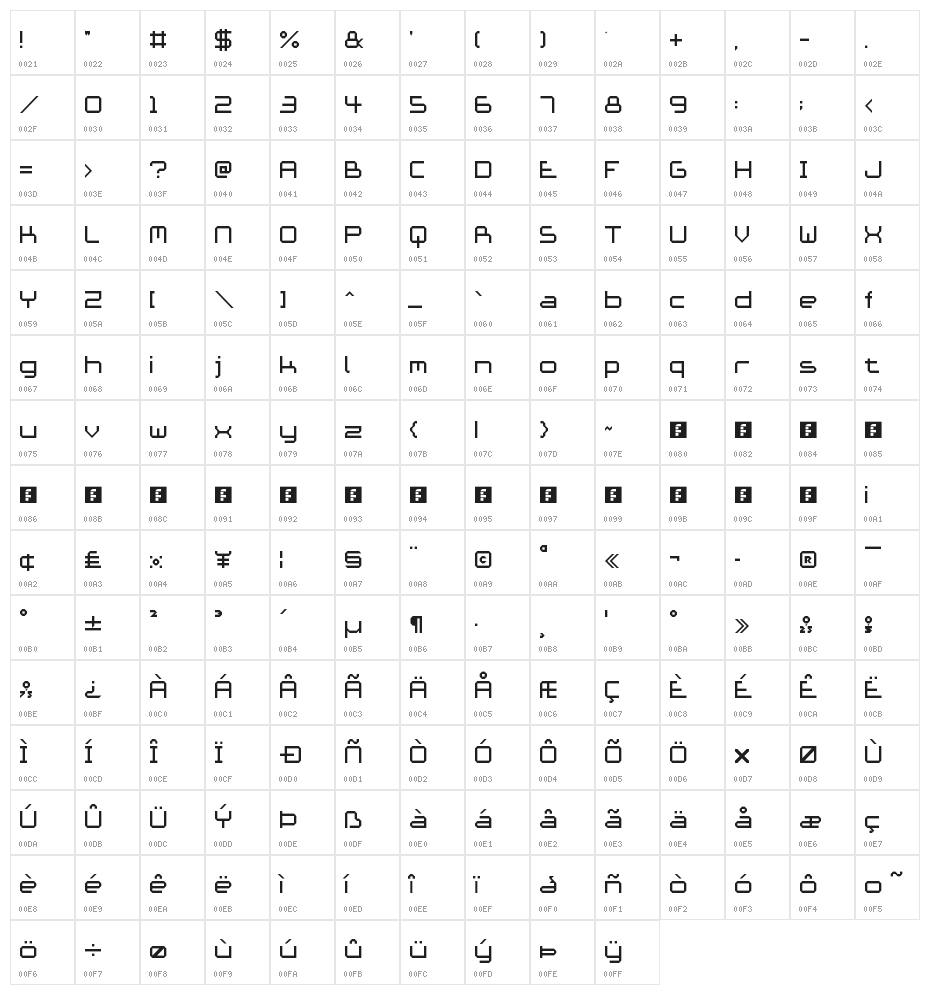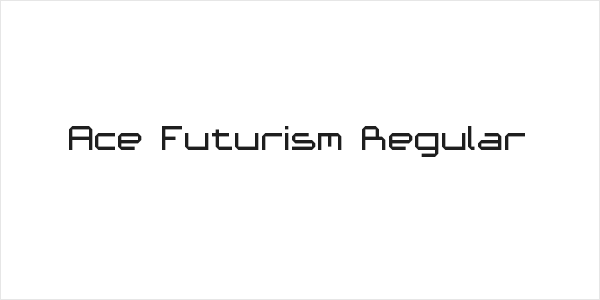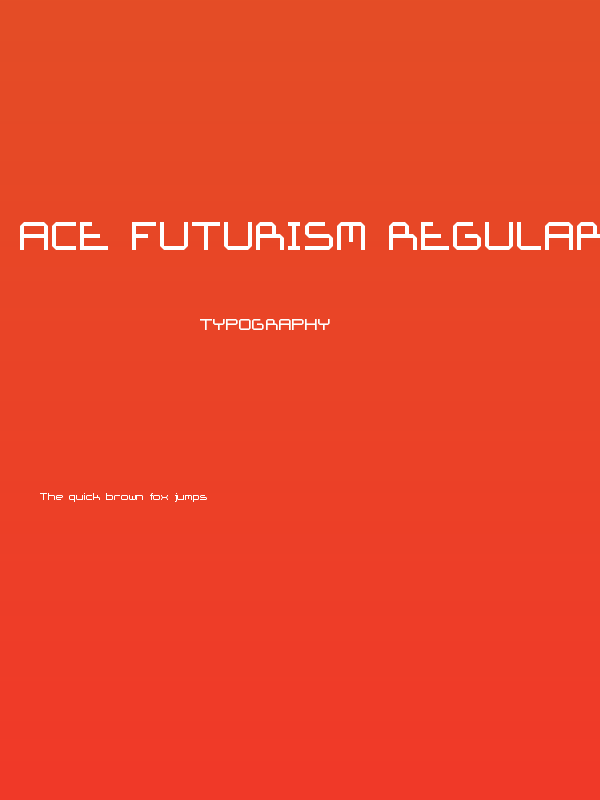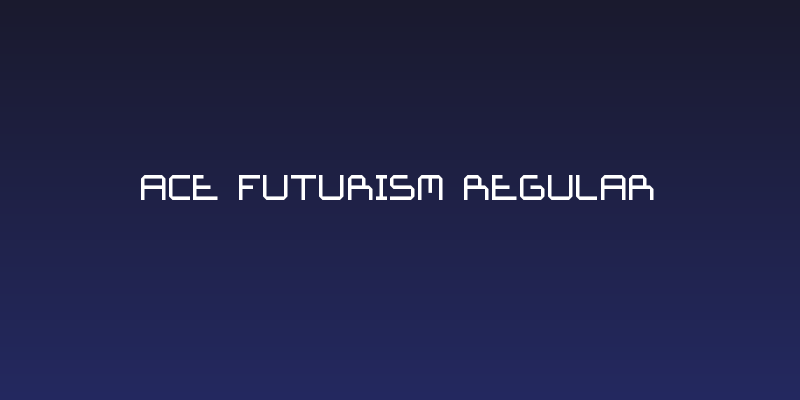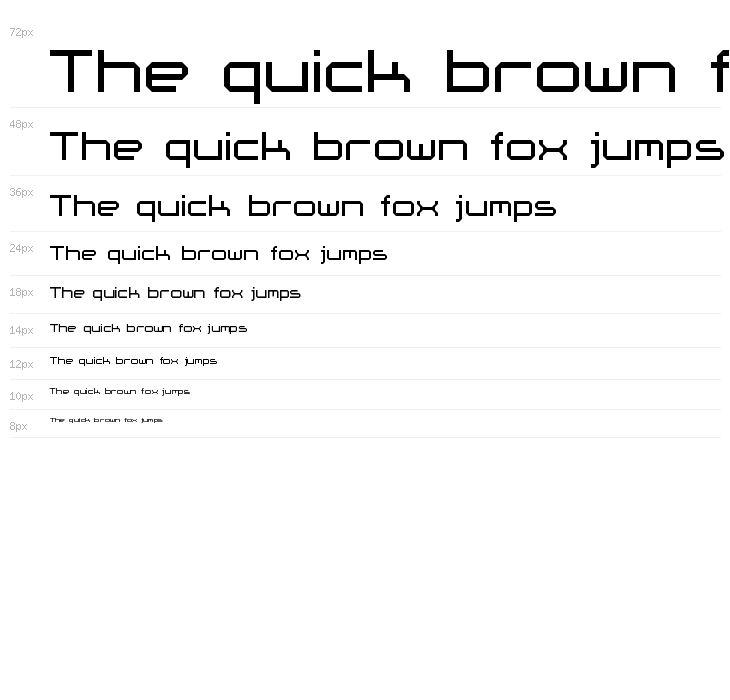
Ace Futurism Regular Font
Ace Futurism Regular Description
This font features a futuristic and geometric design, characterized by its angular and block-like letterforms. The uppercase and lowercase letters maintain a consistent style, with sharp edges and a uniform stroke width that gives it a modern and technological appearance. The numerals and special characters follow the same design principles, ensuring a cohesive look across all glyphs. The font's structure is clean and minimalistic, making it suitable for digital and tech-related projects. Its distinct style is both eye-catching and readable, ideal for making bold statements.
| Proposed Projects | Ideal for tech branding, digital interfaces, video game design, and sci-fi themed projects. |